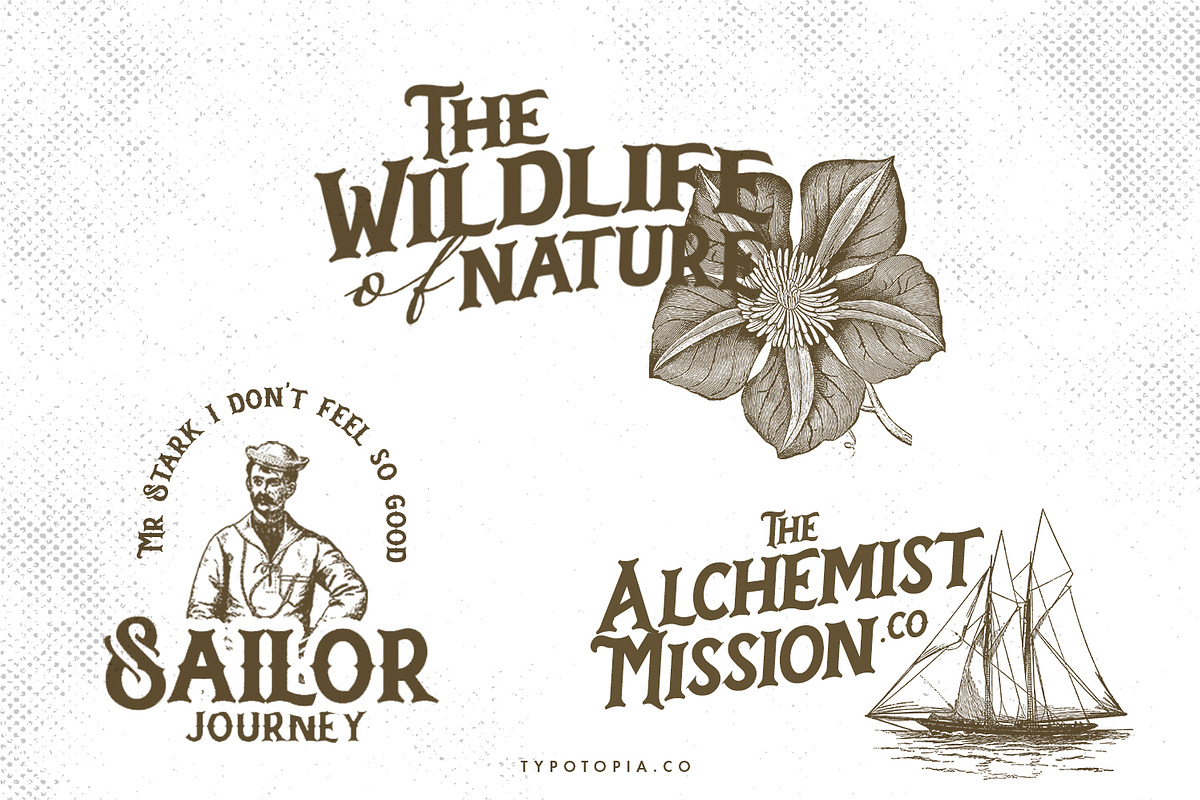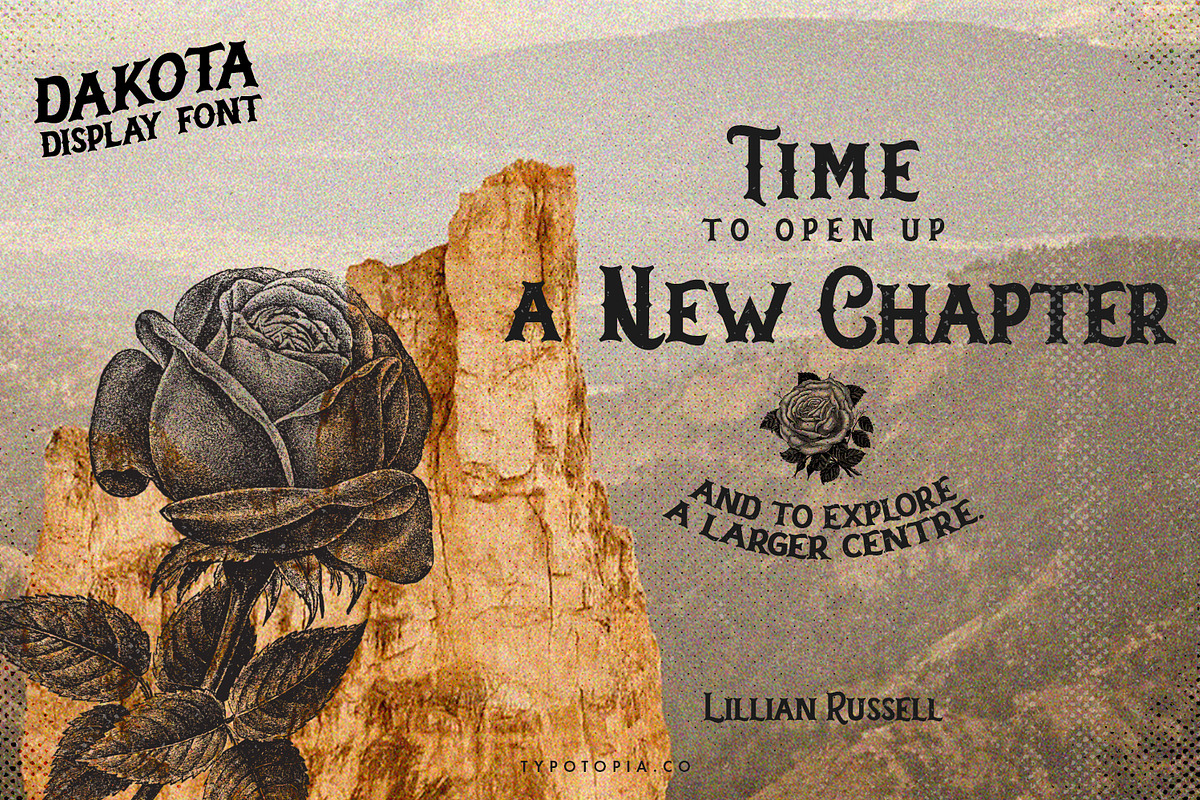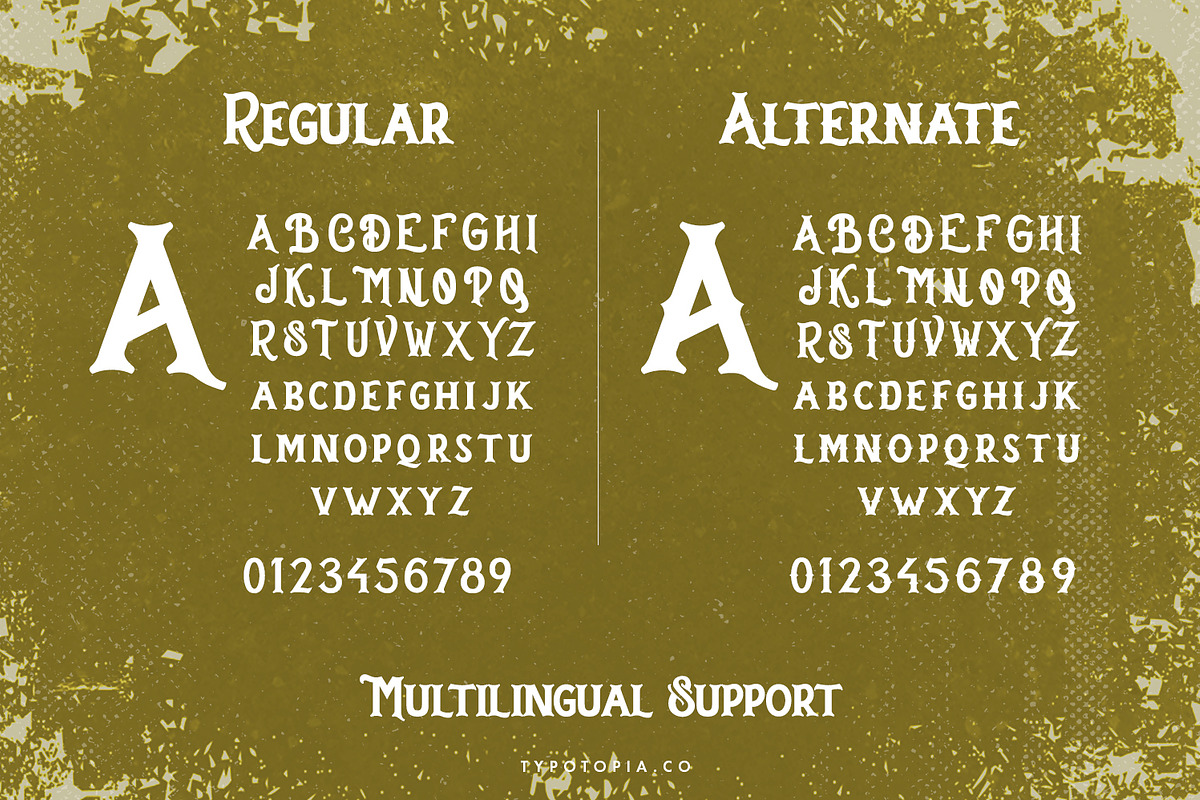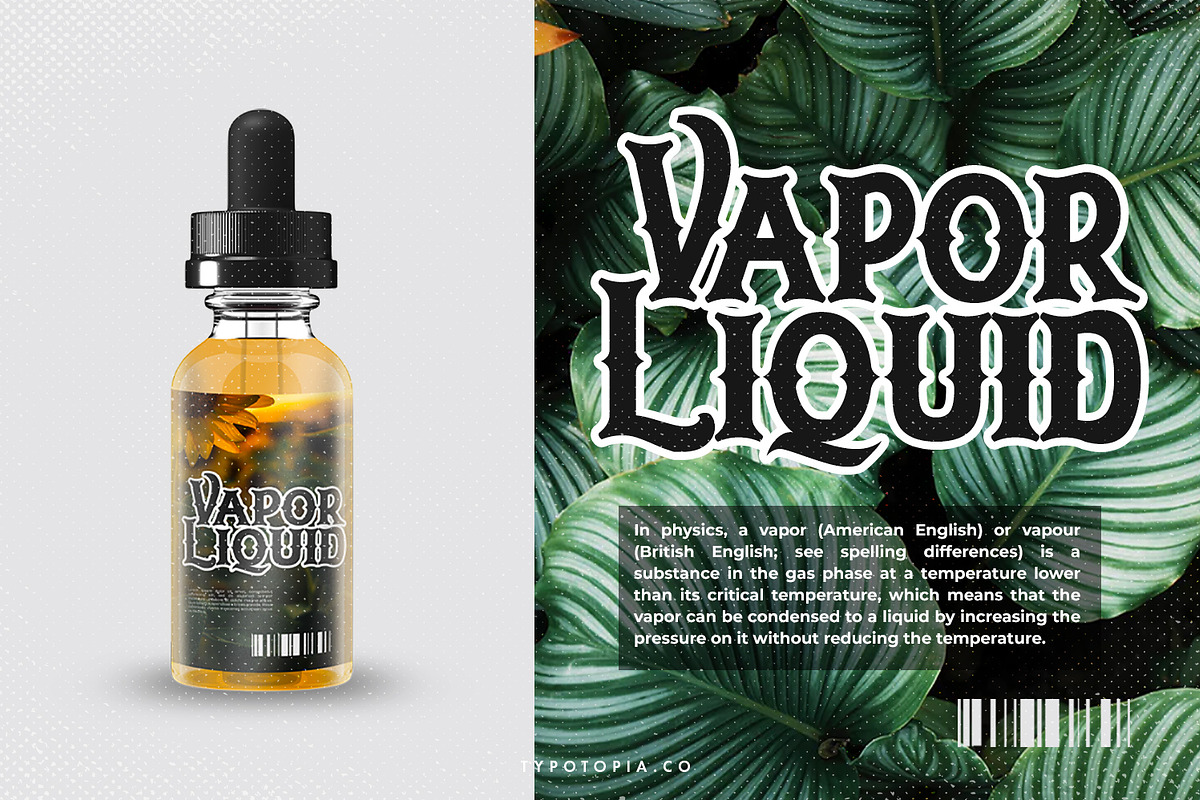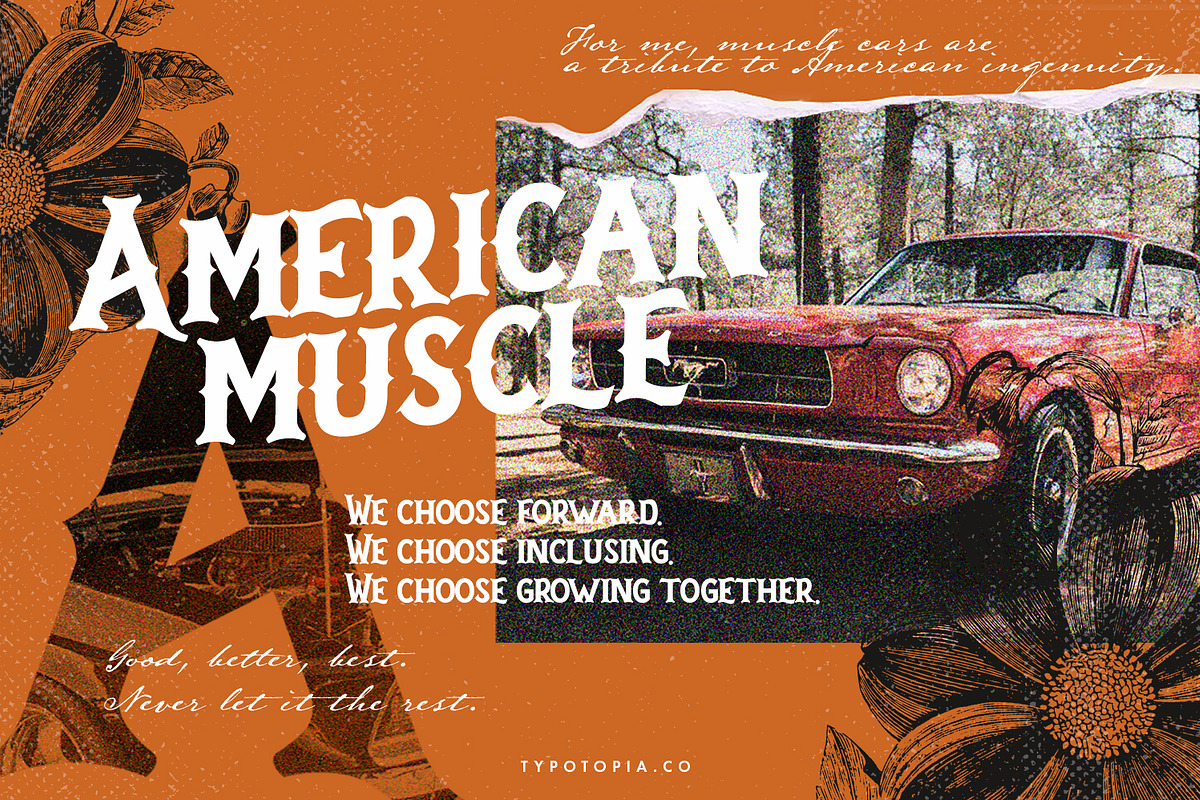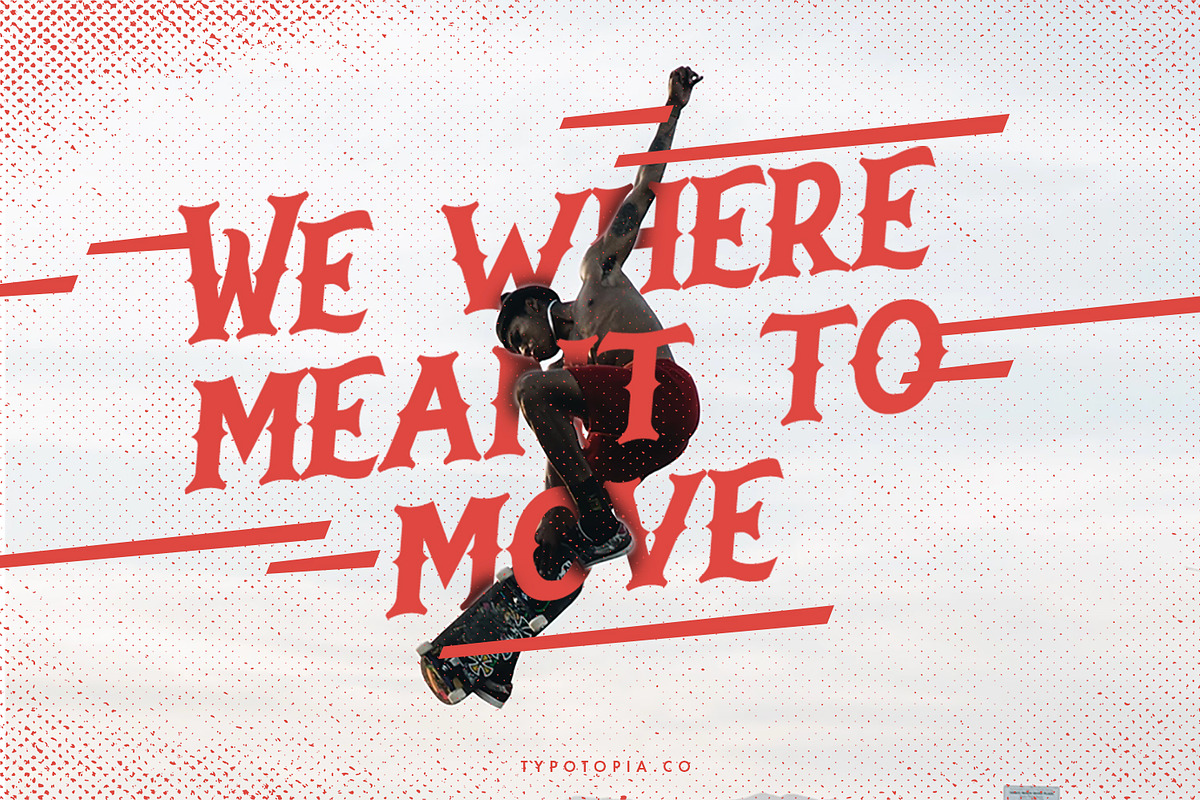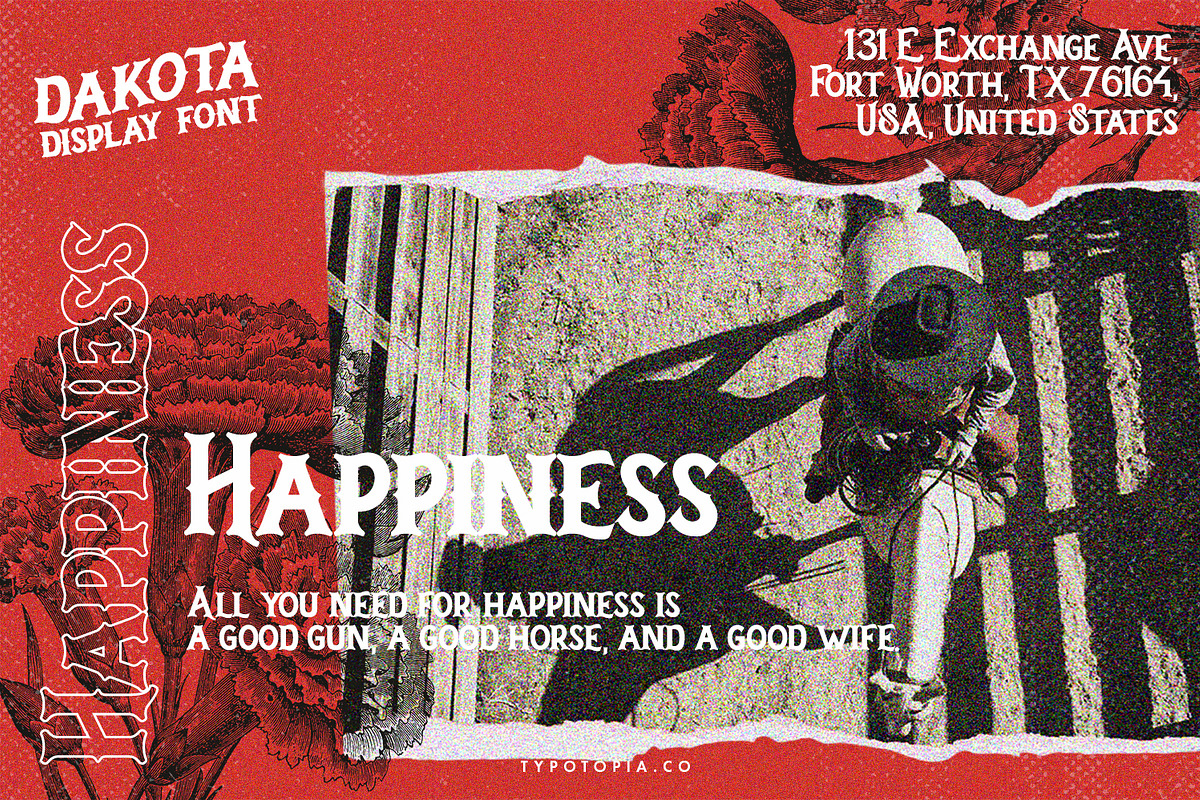
Dakota Font
Dakota is a Font that inspired by lettering from the good old past, but it still has a strong modern appearance. its come with 2 kind of style, Regular and Alternate. Every Combination have been carefully crafted to make your designs looks better.
Dakota is the great choice for several purpose, it suitable for for headline, logotype, apparel, invitation, branding, packaging, advertising etc.
Dakota also Support Multilingual Feature for Foreign Language, here’s the list :
áäåãéèëìïîòöôøùüAÀÁÂÃÄÅEÈÉÊËIÌÍÎÏNÑOÒÓÔÕÖUÙÜÚÛYÝŸ?Ÿ
Uppercase & Lowercase letters
Dakota Font by edukka fits naturally into Branding, posters, packaging, typography.